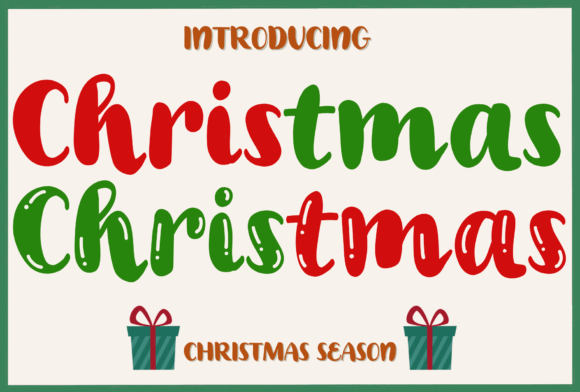
It’s that time of the year when creativity knows no bounds, and the festive spirit takes over. You’re rummaging through your craft box, searching for the perfect embellishments to adorn your holiday cards, and suddenly, your eyes land on a delightful font that screams ‘Christmas magic.’ That moment of inspiration is exactly what Christmas Font is all about – capturing the essence of the season in a beautiful, handwritten typeface.
As a designer, you know the importance of a perfect font in making your creations stand out. Christmas Font is a treasured addition to any holiday project, adding a touch of warmth and merriment to your designs. With its charming strokes and festive flair, this font brings the joy of the season to life, making it a valuable asset for any designer looking to spread cheer this holiday season.
Key Features of Christmas Font
- Unique Characteristics: Christmas Font features a festive and playful design with intricate details, making it perfect for holiday-themed projects.
- Character Set: The font includes a wide range of characters, including uppercase and lowercase letters, numbers, and special characters.
- Language Support: Christmas Font supports multiple languages, including English, Spanish, French, German, Italian, and many more.
Christmas Font Review
Overall, I’d say the Christmas Font is a decent addition to any designer’s toolkit. ✨ The font’s playful and festive vibe is perfect for holiday-themed projects, and it’s sure to put a smile on your clients’ faces. The font’s bold and colorful characters are well-designed, and the kerning is spot on.
One of the things that works particularly well is the font’s flexibility. ✨ You can use it for a variety of projects, from greeting cards to social media graphics, and it will always look great. The font is also highly customizable, allowing you to adjust the size, color, and style to suit your needs.
Here are some of the font’s key features:
- Playful and festive vibe
- Bold and colorful characters
- Spot-on kerning
- Flexible and versatile
However, there are a few limitations to consider. ⚠️ The font is not particularly suitable for formal or professional projects, and some of the characters may be difficult to read at smaller sizes. Additionally, the font’s bold style can be a bit overwhelming if used excessively.
Overall, I’d give the Christmas Font 4 out of 5 stars. While it’s not perfect, it’s a great choice for holiday-themed projects and can add a lot of fun and personality to your designs. Just be sure to use it judiciously and in moderation.